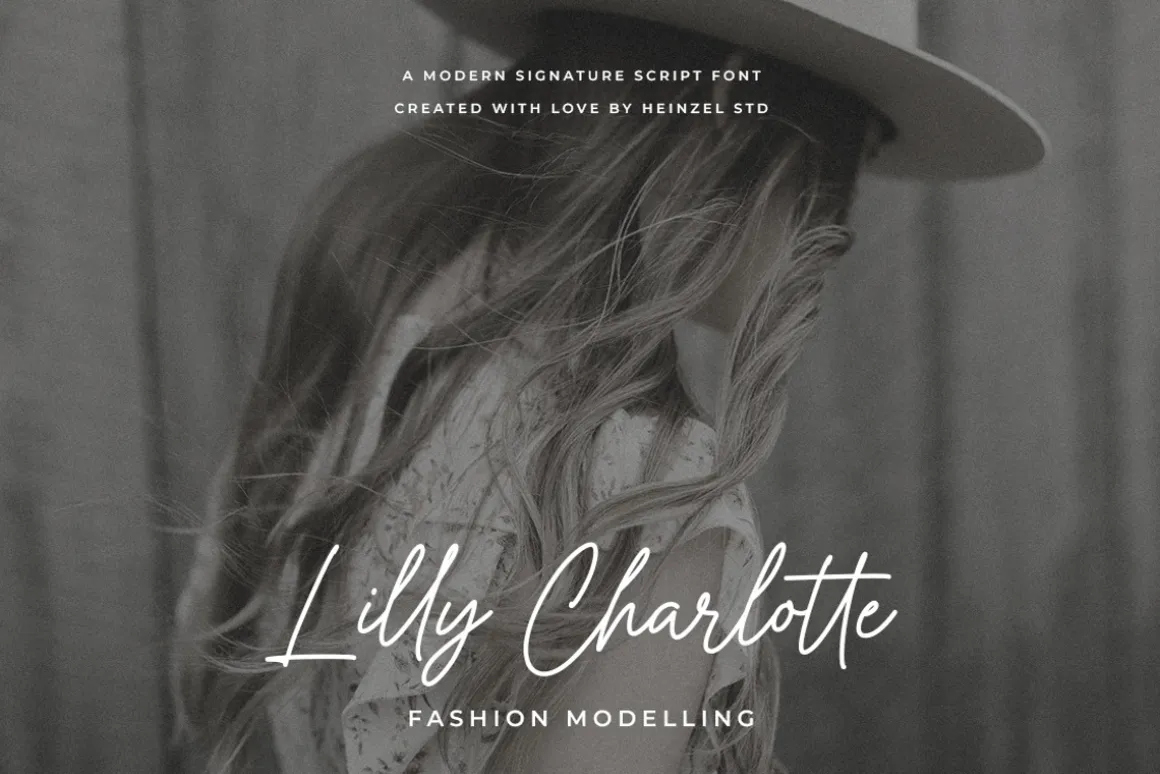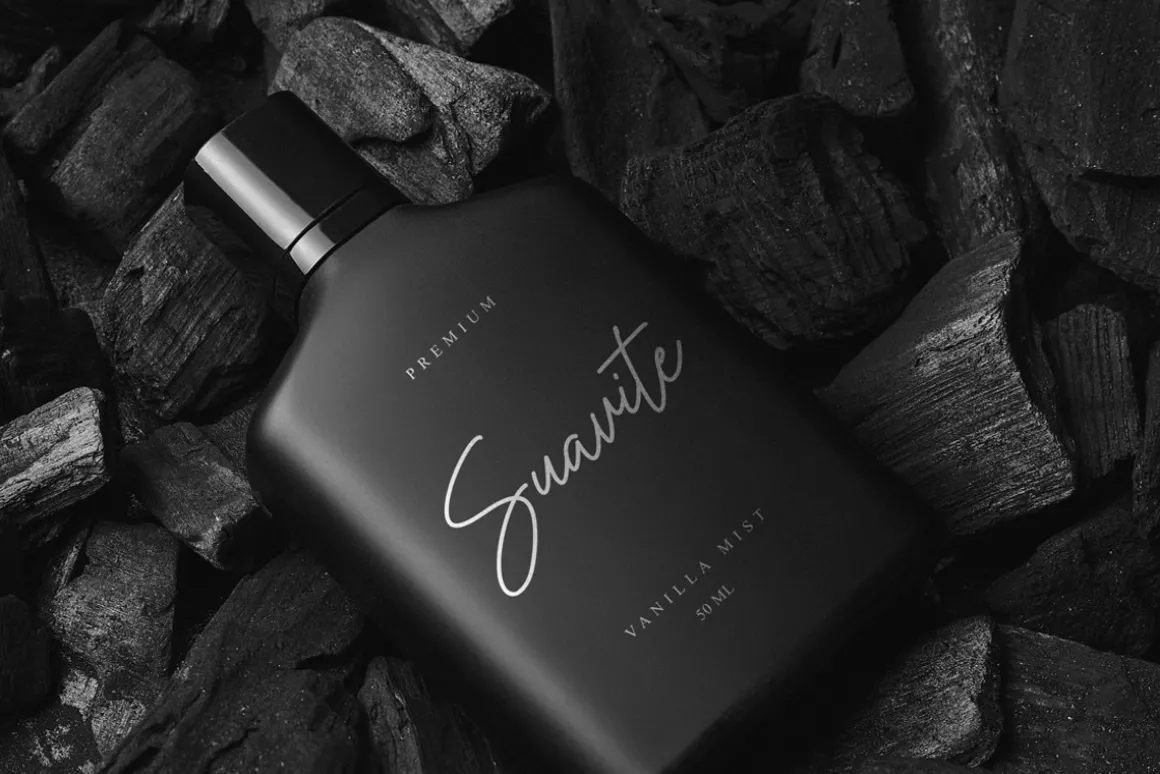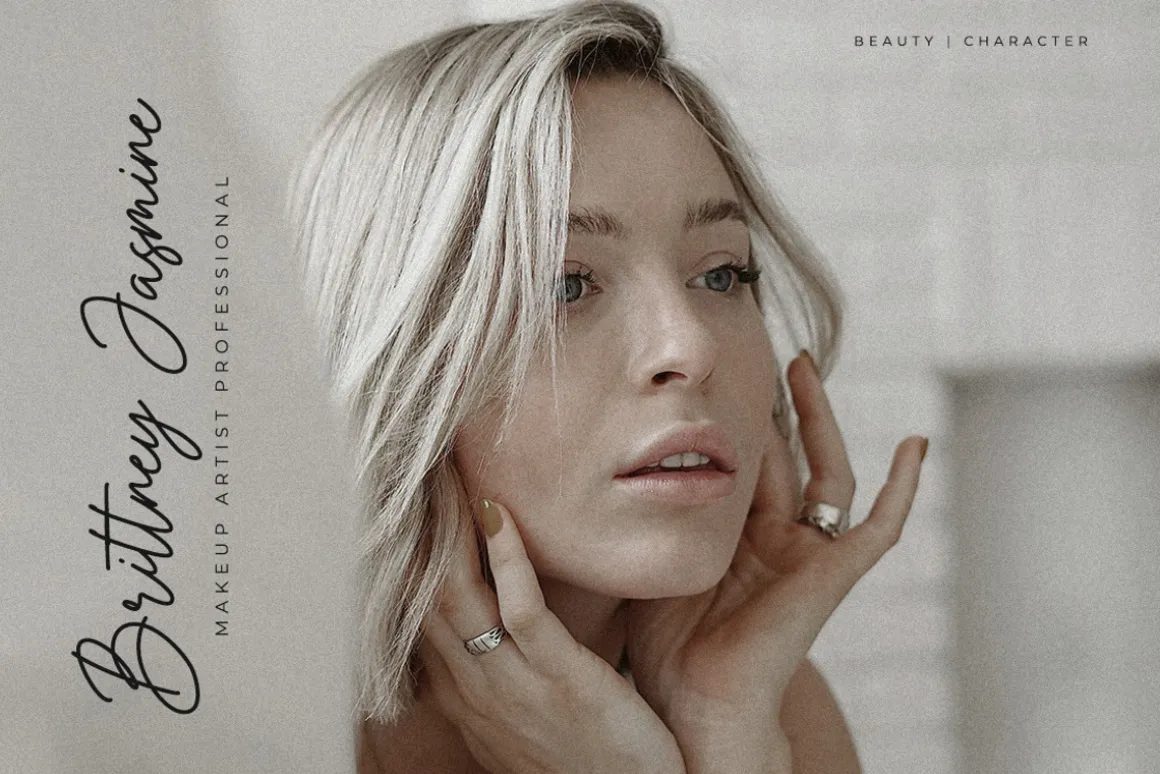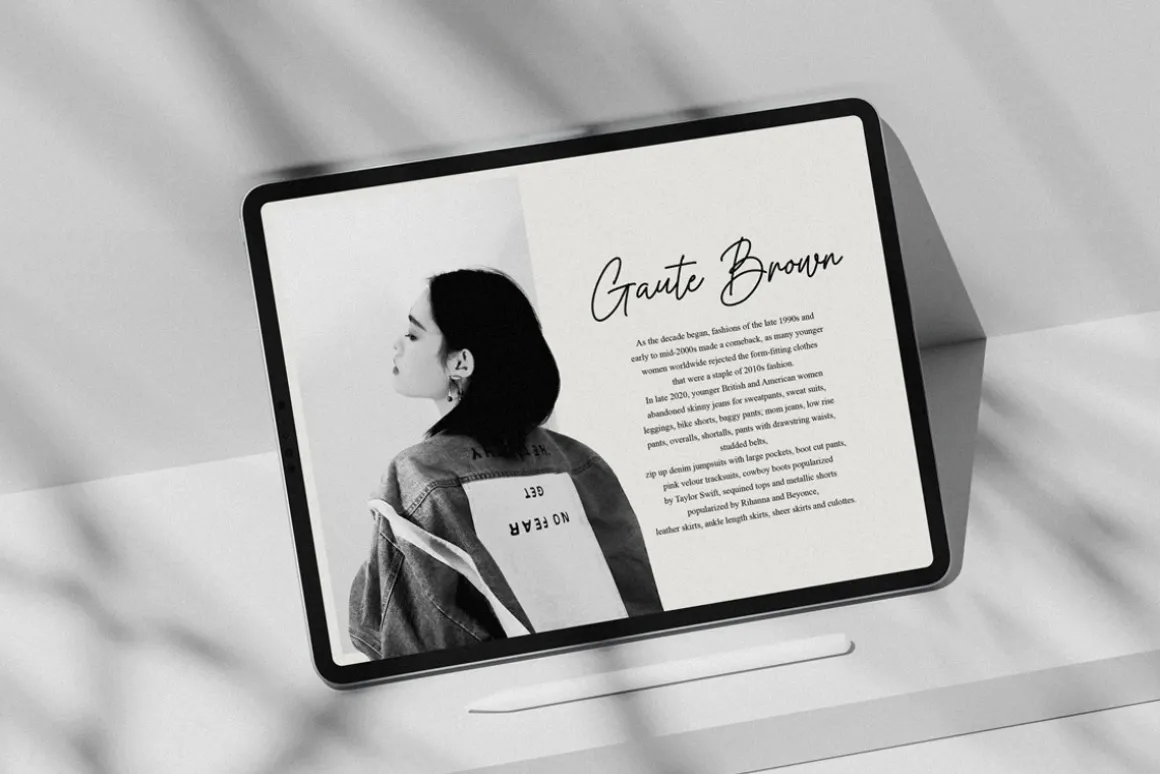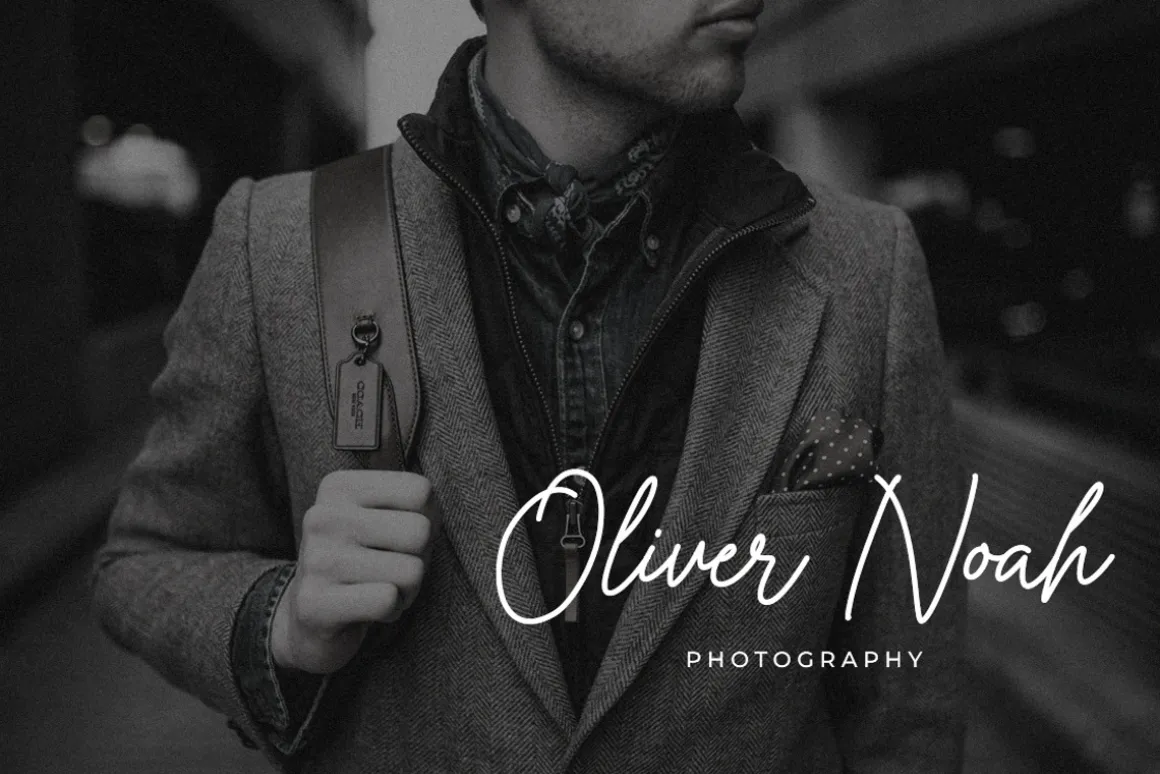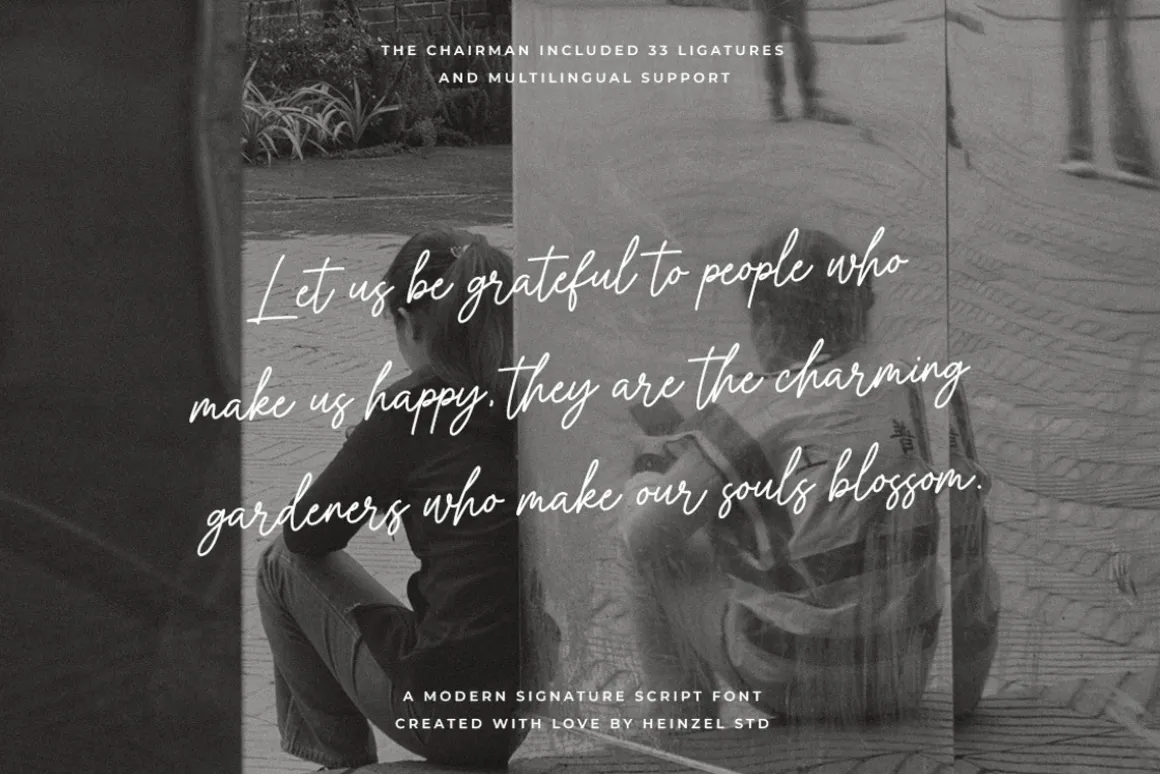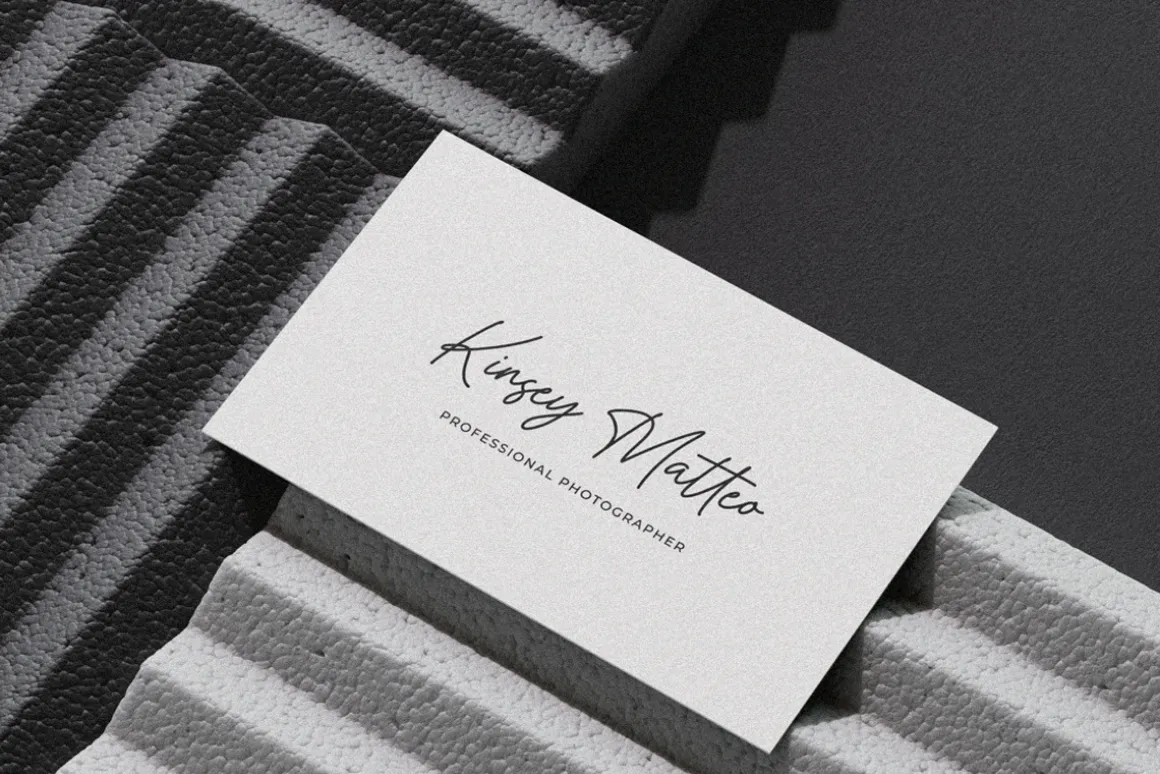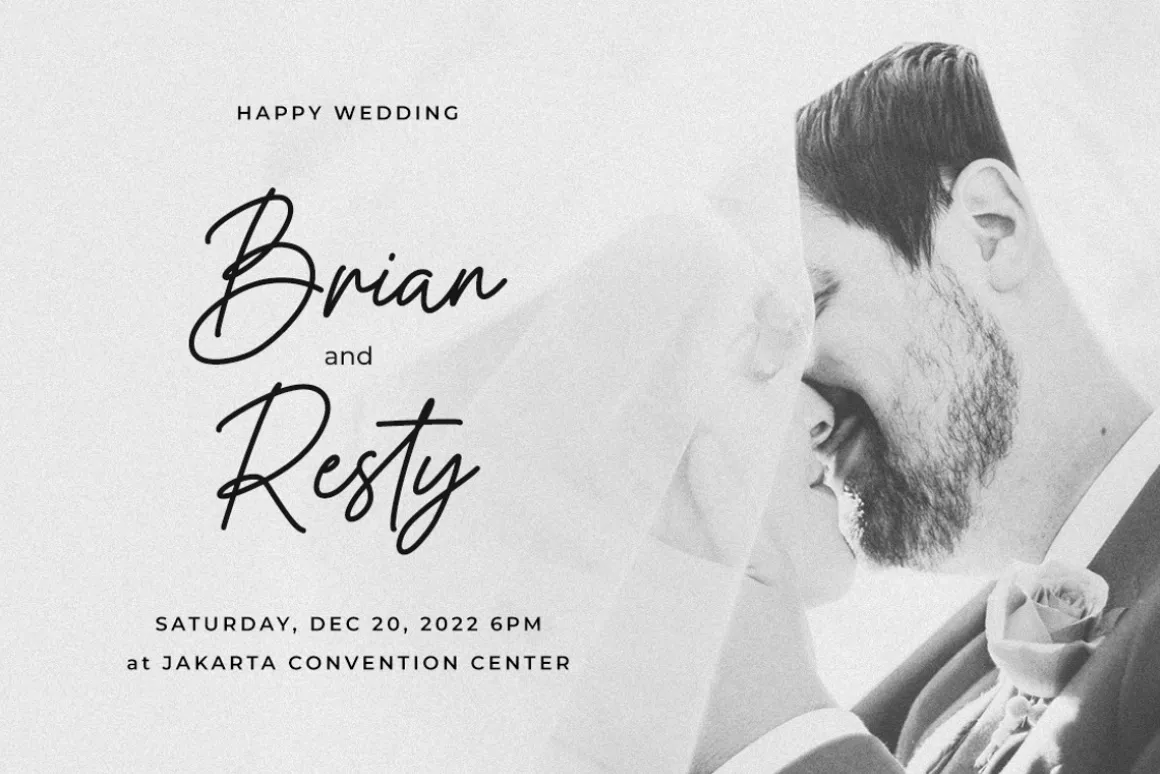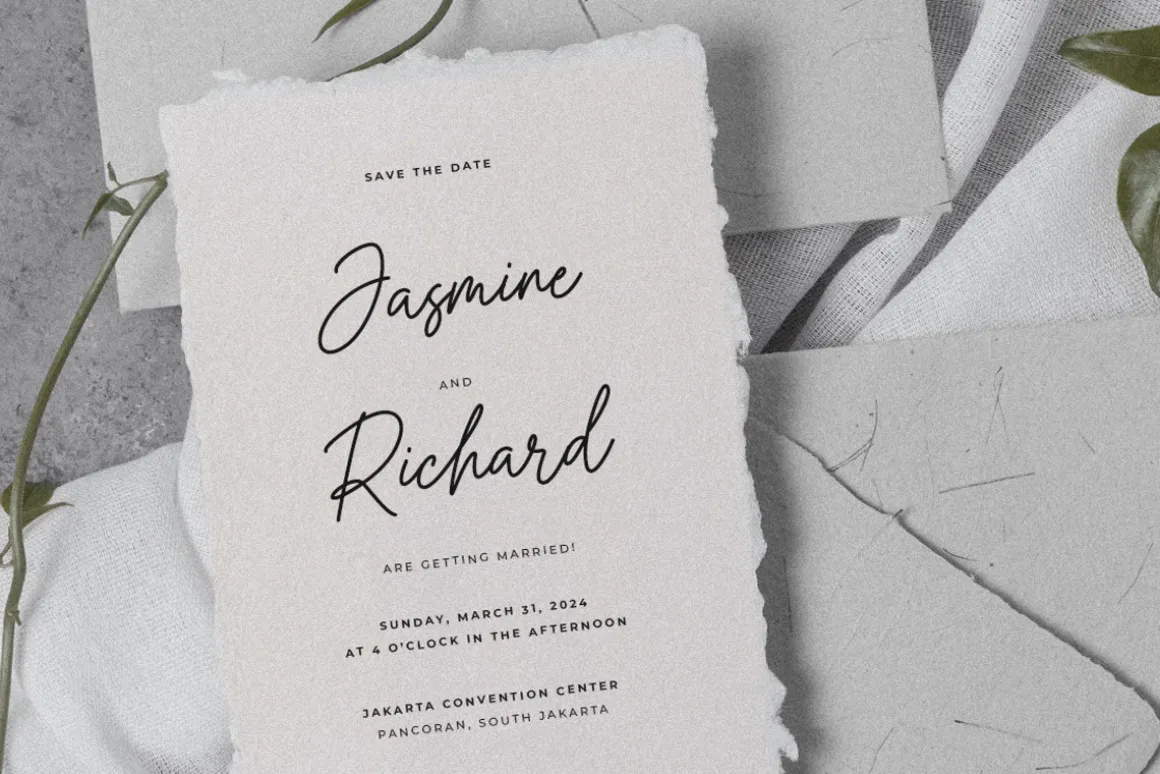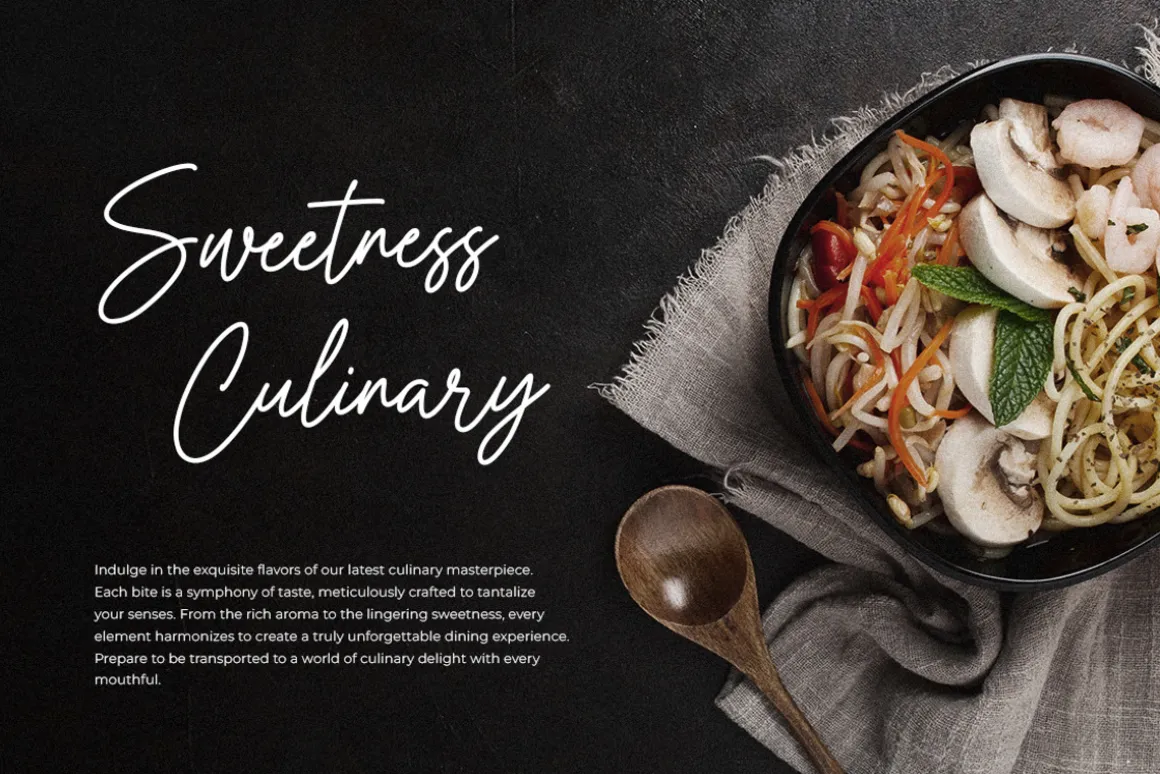
The Chairman Modern Signature Font is a sophisticated and luxurious typeface designed to exude an air of elegance and prestige. This carefully crafted font captures the essence of a distinguished chairman’s signature, making it perfect for high-end branding, upscale invitations, and exclusive events. With its timeless appeal, The Chairman Signature Font adds a touch of refinement to any project it graces.
The Chairman Signature Font can be used across various media, including logos, business cards, wedding invitations, and more. Whether you’re creating a brand identity for a luxury brand or designing a high-profile event invitation, this font will elevate your design to new heights.
Elevate your designs with the signature elegance of this font. Let its refined and sophisticated charm captivate your audience and make a lasting impact. Embrace the versatility and convenience of this digital font to create memorable and visually stunning designs.
The Chairman Features:
- Numerical and Punctuation
- Ligatures
- Multilingual Language
This character set supports the following 21 languages: Afrikaans, Basque, Breton, Catalan, Danish, Dutch, English, Finnish, French, Gaelic (Irish, Scots), German, Icelandic, Indonesian, Irish, Italian, Norwegian, Portuguese, Saami (Southern), Spanish, Swahili, Swedish.